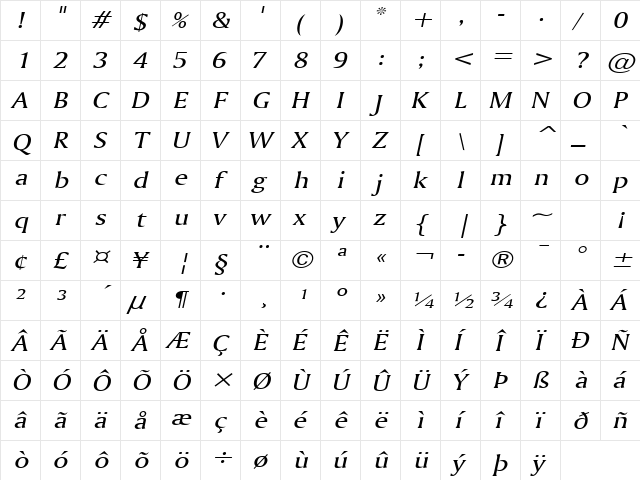
Ameretto Wide Italic
Design Context for Ameretto Wide Typeface
Ameretto Wide offers clean, dependable letterforms without strong stylistic allegiance, making it a practical choice for designers who need flexibility. The dynamic lean of this cut emphasises speed and emphasis in any layout.
Pro Tip: Use Ameretto Wide for emphasis, pull quotes, and subheadings where its slanted energy can add rhythm to the layout.